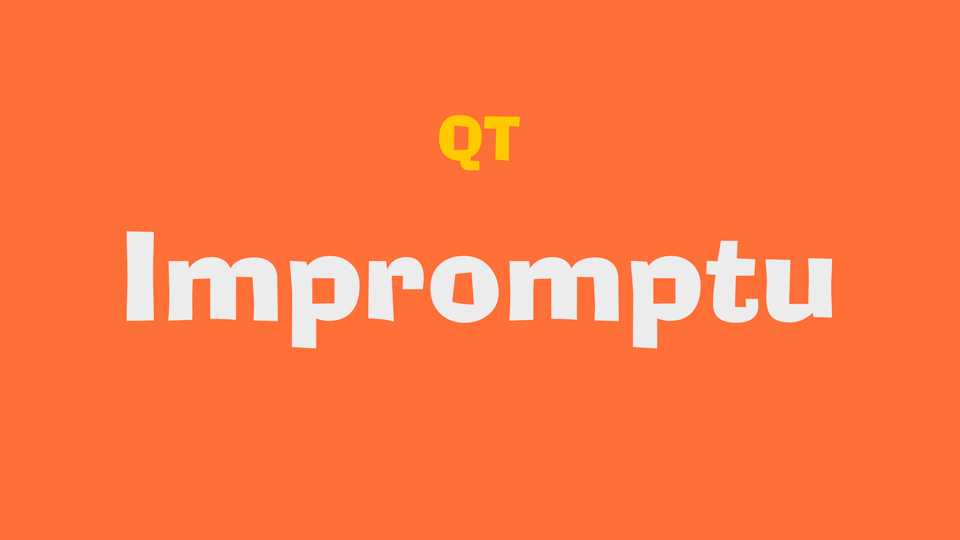
Download Impromptu font, a comic typeface based on the Ad Lib designed in 1961 by Freeman Craw. Sporting irregular character shapes, this informal typeface makes a good impression when a 1960s look is desired in advertising and display work.